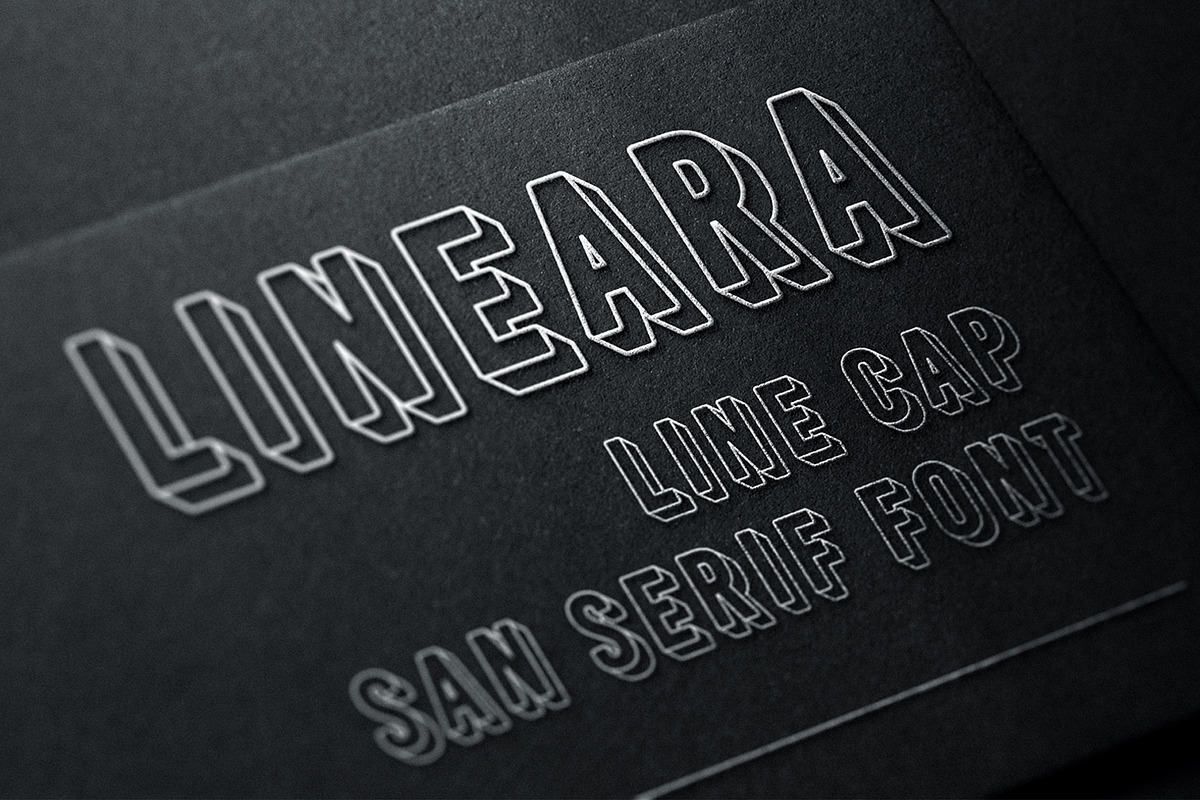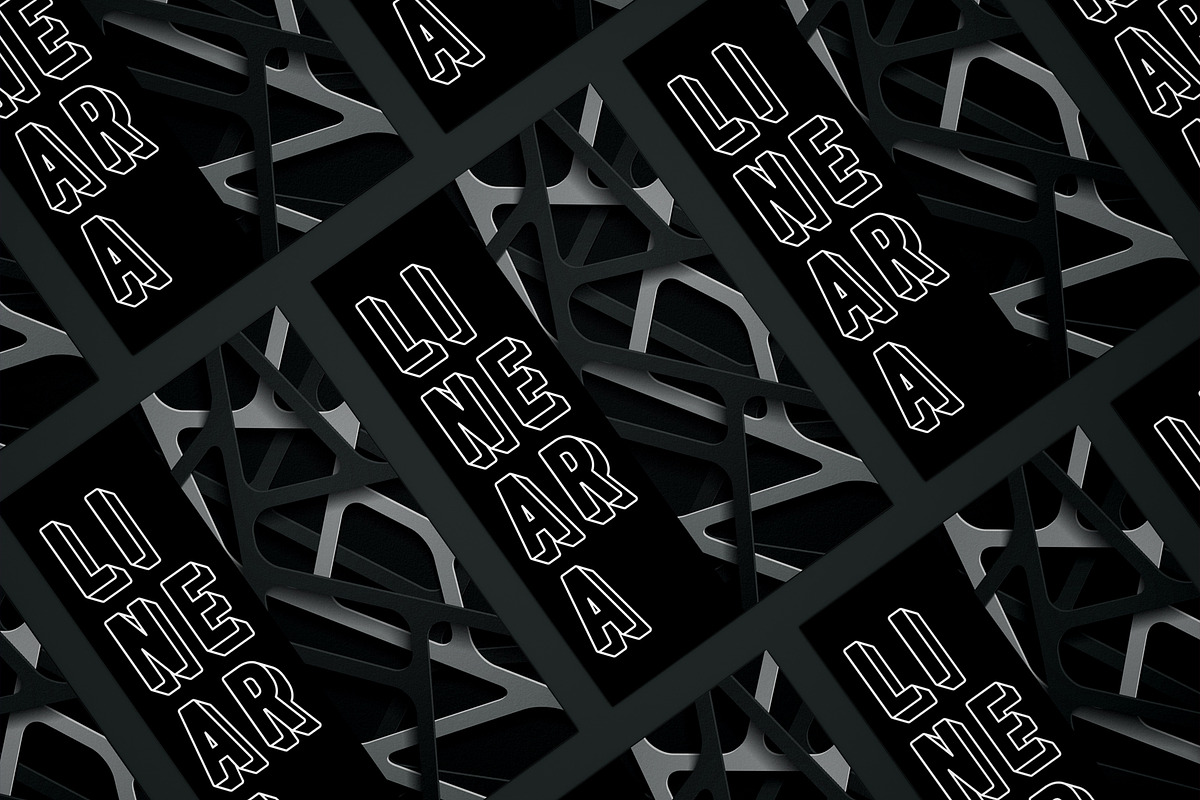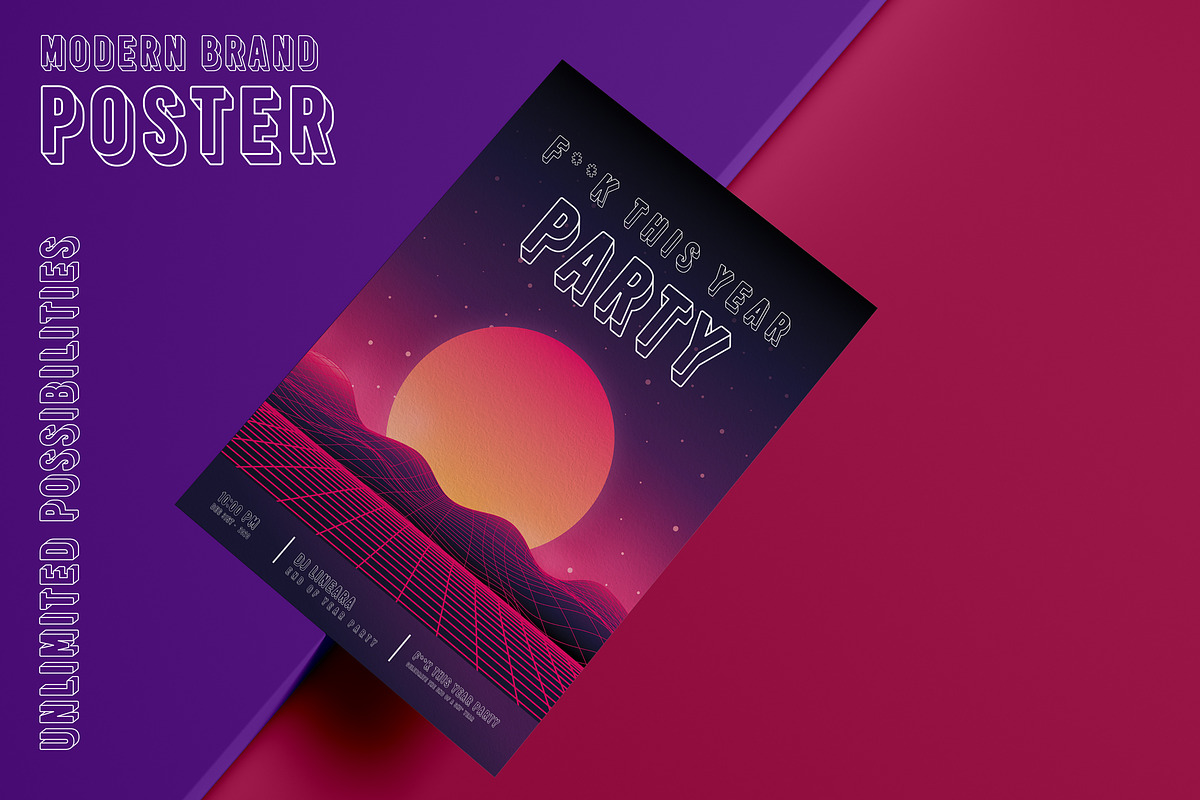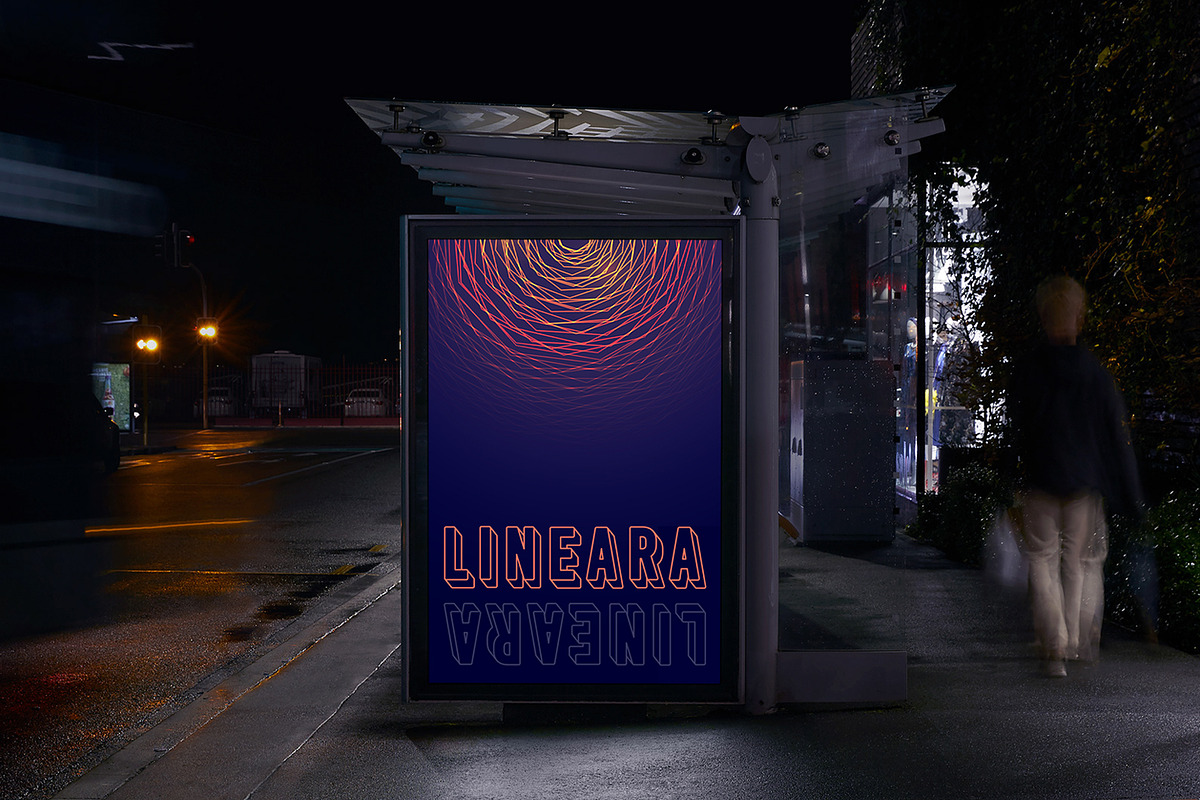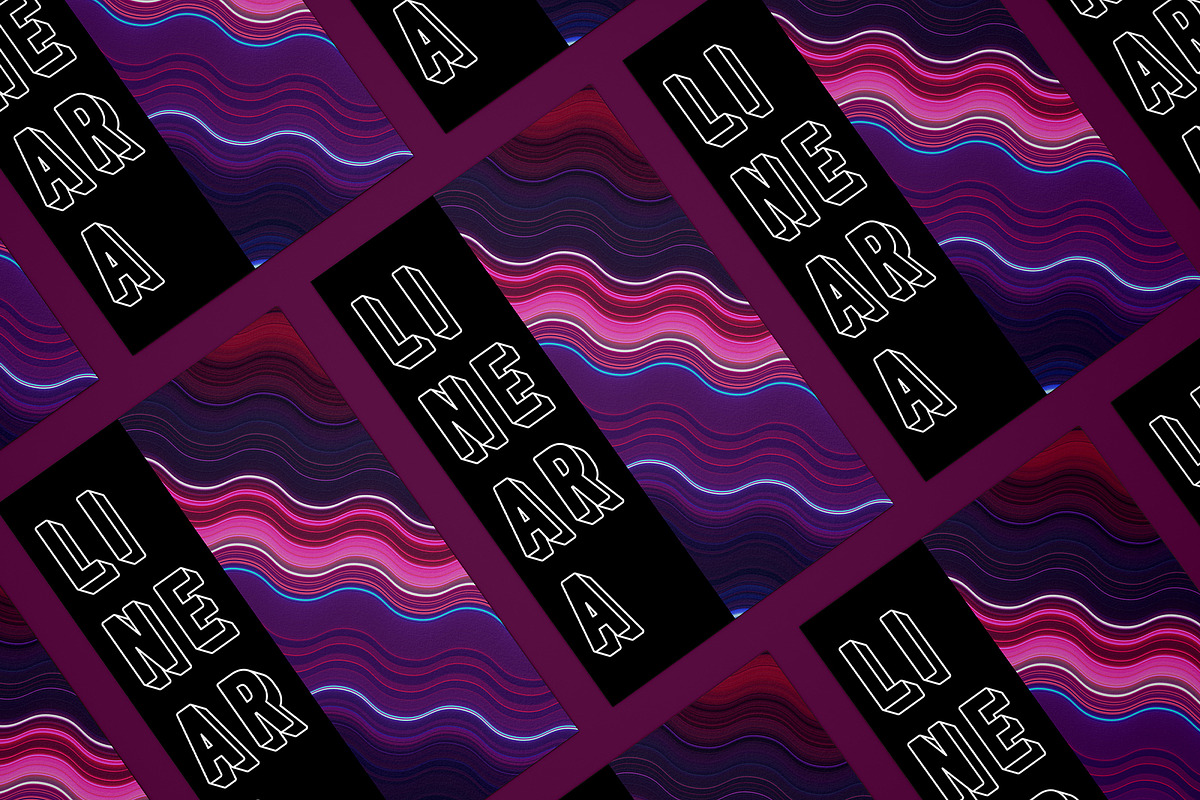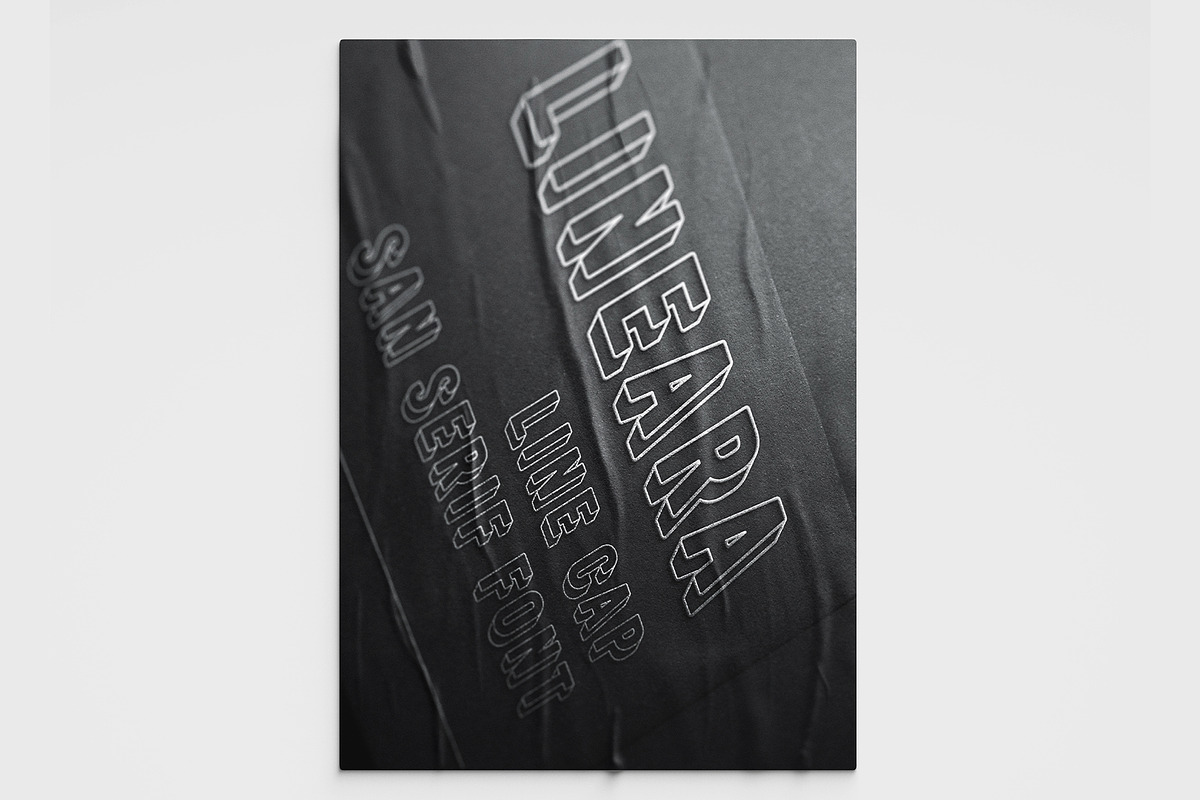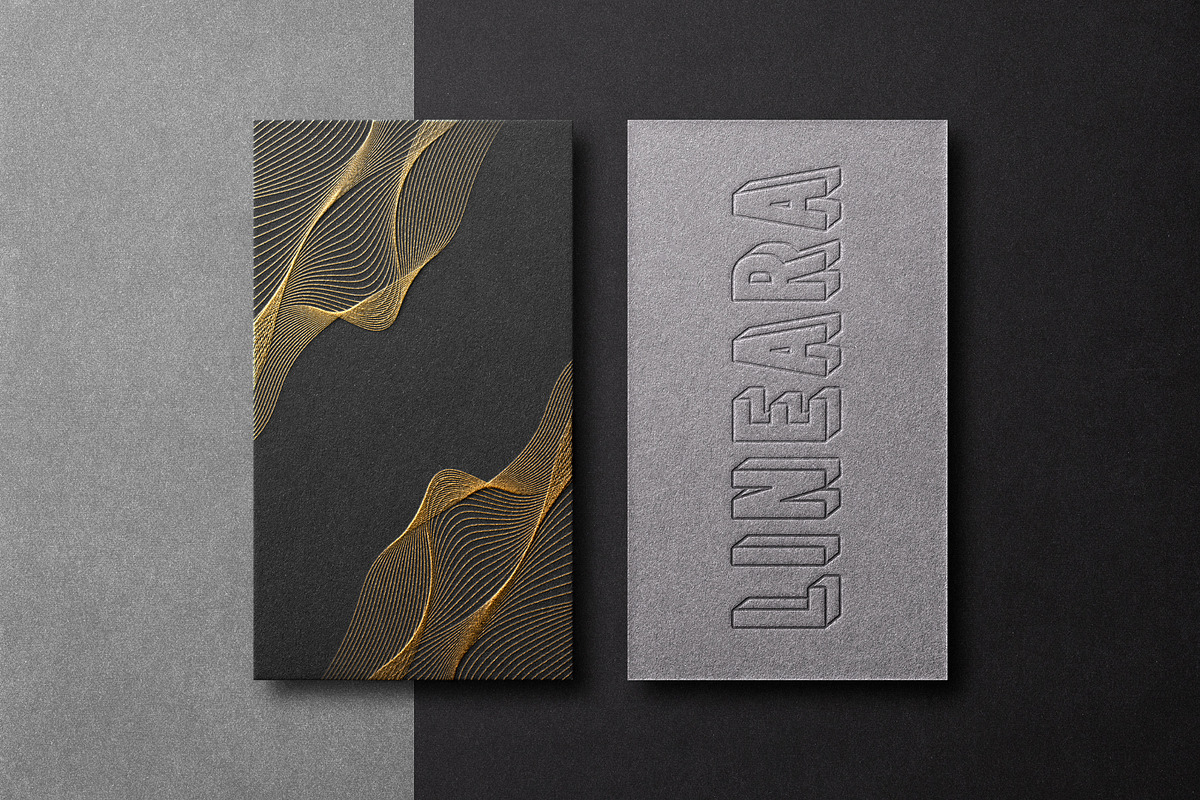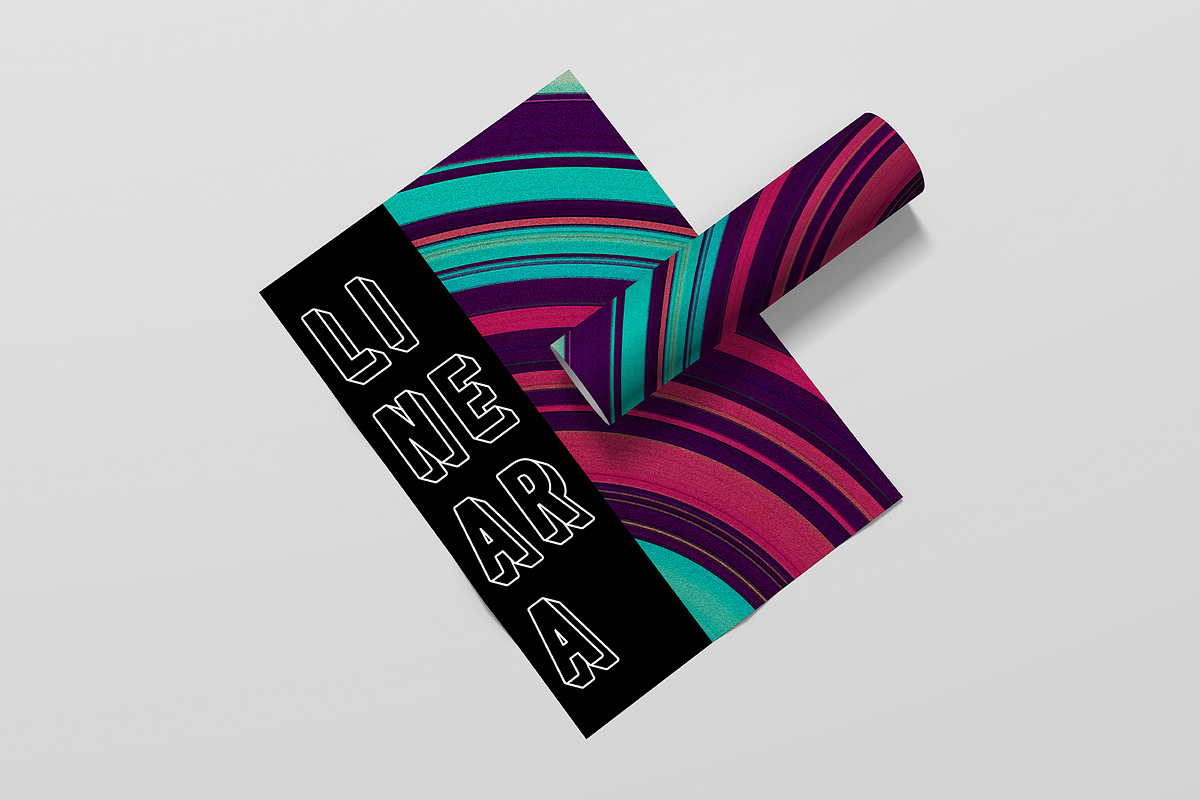
Lineara Modern Line Caps Font
Lineara - Modern Line Caps Sans Serif Font
Lineara is a fun, modern, clean, and simple font that focuses on the lines to create a boxed 3D Effect to the typography. Great for adding a little futuristic and modern twist to your projects!
All Capitals only A-Z ABCDEFGHIJKLMNOPQRSTUVWXYZ 0-9 123456790
- Punctions !@£$%^&()_+-=,./?;':"|[]{}*